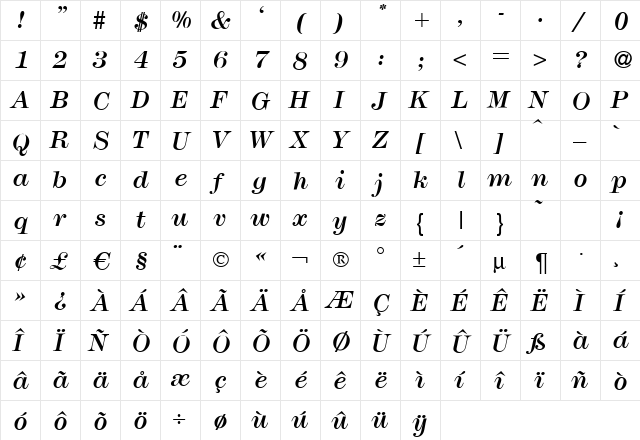
M791-Modern Italic
Design Context for M791-Modern Typeface
M791-Modern is a composed and adaptable typeface that performs quietly and consistently across a wide range of design contexts. Its italic angle brings a sense of urgency and motion to the letterforms.
Pro Tip: Try M791-Modern for annotation and caption copy alongside an upright companion — the contrast in angle creates a dynamic but ordered typographic system.